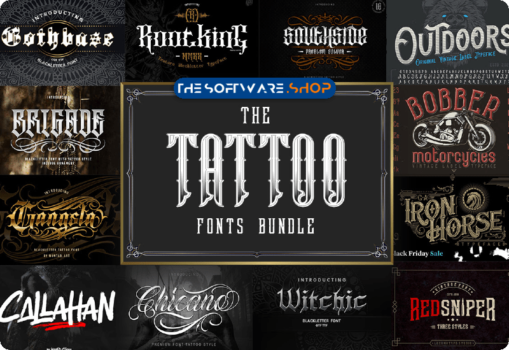
Picking the best tattoo font is a huge thing. You want to make sure it hits the right note since there are so many different tattoo typographies. The typestyle that you’d like to incorporate is of extreme significance. If you’re a creator, designer, or tattoo artist, you’ll undoubtedly find The Tattoo Fonts Bundle useful for making spectacular text-based masterpieces.
Are you considering using text in your next tattoo? Or are you looking to design something that is similar to tattoo-style art? Then these 126 tattoo fonts are the best to convey the message through your designs.
These powerful typestyles will incorporate a unique character in every design project. 126 tattoo fonts are the best to convey the message through your designs. From minimalist tattoo fonts to the most sophisticated ones, These fonts are perfect for logotype, posters, badges, book covers, t-shirt designs, packaging, and more.